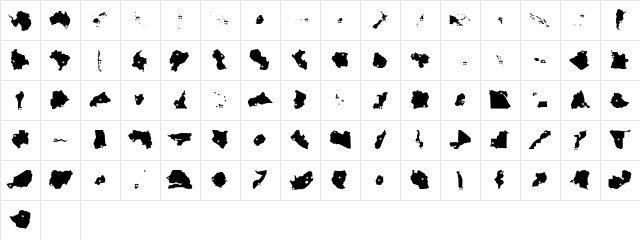
Mini Pics Global S Capital
| Style | Global S Capital |
Design Context for Mini Pics Typeface
Mini Pics is a composed and adaptable typeface that performs quietly and consistently across a wide range of design contexts.